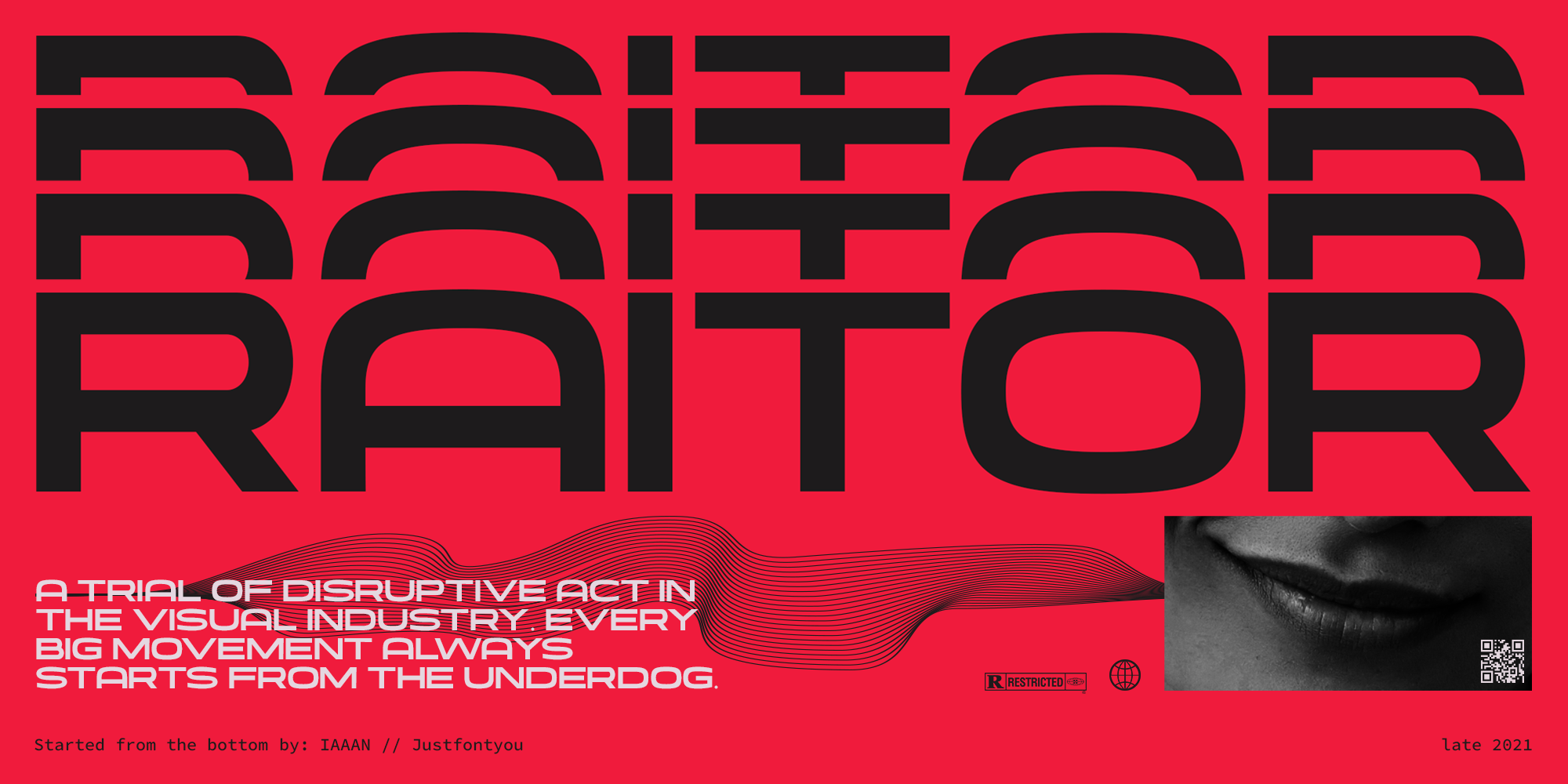
Raitor Font is a strikingly modern and often geometrically inspired sans-serif typeface, perfectly suited for designs that demand a sense of precision, innovation, and contemporary minimalism. Imagine it anchoring the branding for cutting-edge tech startups, providing crystal-clear information in sleek digital interfaces, or gracing the pages of avant-garde design magazines. Its clean lines and often slightly extended or condensed forms also make it an excellent choice for crafting impactful website headers, designing professional business cards, and creating sophisticated advertisements for high-end products. Whether you're aiming for a strong, innovative, or effortlessly chic aesthetic, Raitor Font delivers a powerful and highly adaptable visual identity that resonates with modern sensibilities.
What makes Raitor Font truly exciting is its exceptional balance of strong visual presence and outstanding legibility. It often features a robust construction that makes it stand out, yet its letterforms are meticulously designed to ensure clarity even at smaller sizes. This makes it an incredibly reliable choice for both commanding headlines that need to make a statement and body text that requires sustained readability. Raitor Font excels in environments where clarity, professionalism, and a contemporary feel are paramount, making it suitable for a vast array of digital and print applications. It stands out by offering a versatile and timeless solution that empowers designers to create harmonious and impactful typographic systems.
The Raitor Font family is typically extensive, providing a comprehensive range of weights and styles to cater to virtually any design requirement. You can expect a broad spectrum from a delicate Hairline or Thin, perfect for subtle accents and refined elegance, to a robust Black or UltraBold, ideal for commanding headlines and strong statements. Common weights usually include Light, Regular, Medium, Semibold, and Bold, each meticulously designed with corresponding Italic versions to offer even greater flexibility and stylistic variation. This extensive array ensures that Raitor Font Free Download can be effectively utilized to establish clear visual hierarchies, create dynamic layouts, and maintain consistent brand messaging across all your creative projects, from web design to extensive print collateral.